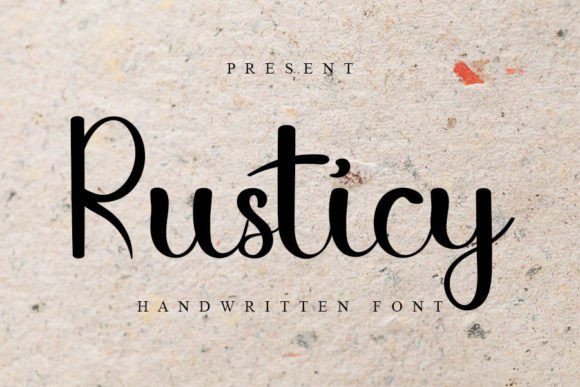
About Rusticy Font
**Rusticy: A Colorful Handwritten Font with Elegance**
Rusticy is a lively handwritten font thoughtfully crafted to infuse colorful personality with a touch of elegance. With its clean yet slightly quirky style, this font is the ideal choice for all your design needs, including logos, branding, social media content, and creative DIY projects.
The charm of Rusticy lies in its colorful and handwritten characters. Each letter is designed to exude a vibrant and creative personality while maintaining an underlying elegance. Whether you’re creating a logo for a unique brand or crafting social media content that stands out, Rusticy adds a distinctive and spirited flair.
Rusticy’s versatility makes it a valuable asset for a wide range of design contexts. It can be used to create eye-catching logos that leave a lasting impression, infuse a playful and creative vibe into branding materials, or add a touch of fun to your DIY projects. Its clean lines ensure that your designs maintain a polished and visually appealing appearance.
In summary, Rusticy is more than just a font; it’s a source of vibrancy and elegance that enhances your design projects. Its colorful handwritten style and touch of quirkiness make it an invaluable choice for infusing personality and creativity into your work. With Rusticy, your creative projects will shine with a colorful and elegant charm. Choose Rusticy, and let your designs captivate with its lively and creative personality.